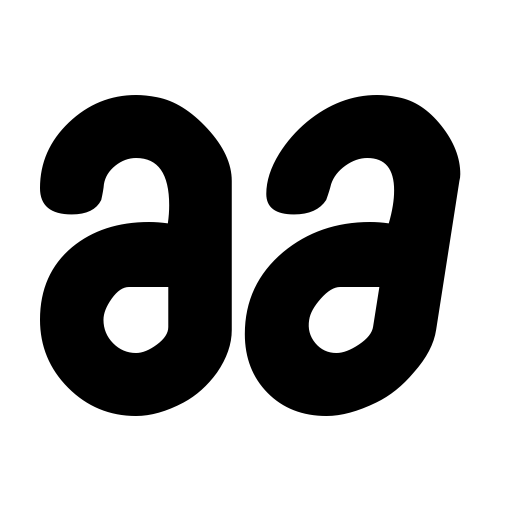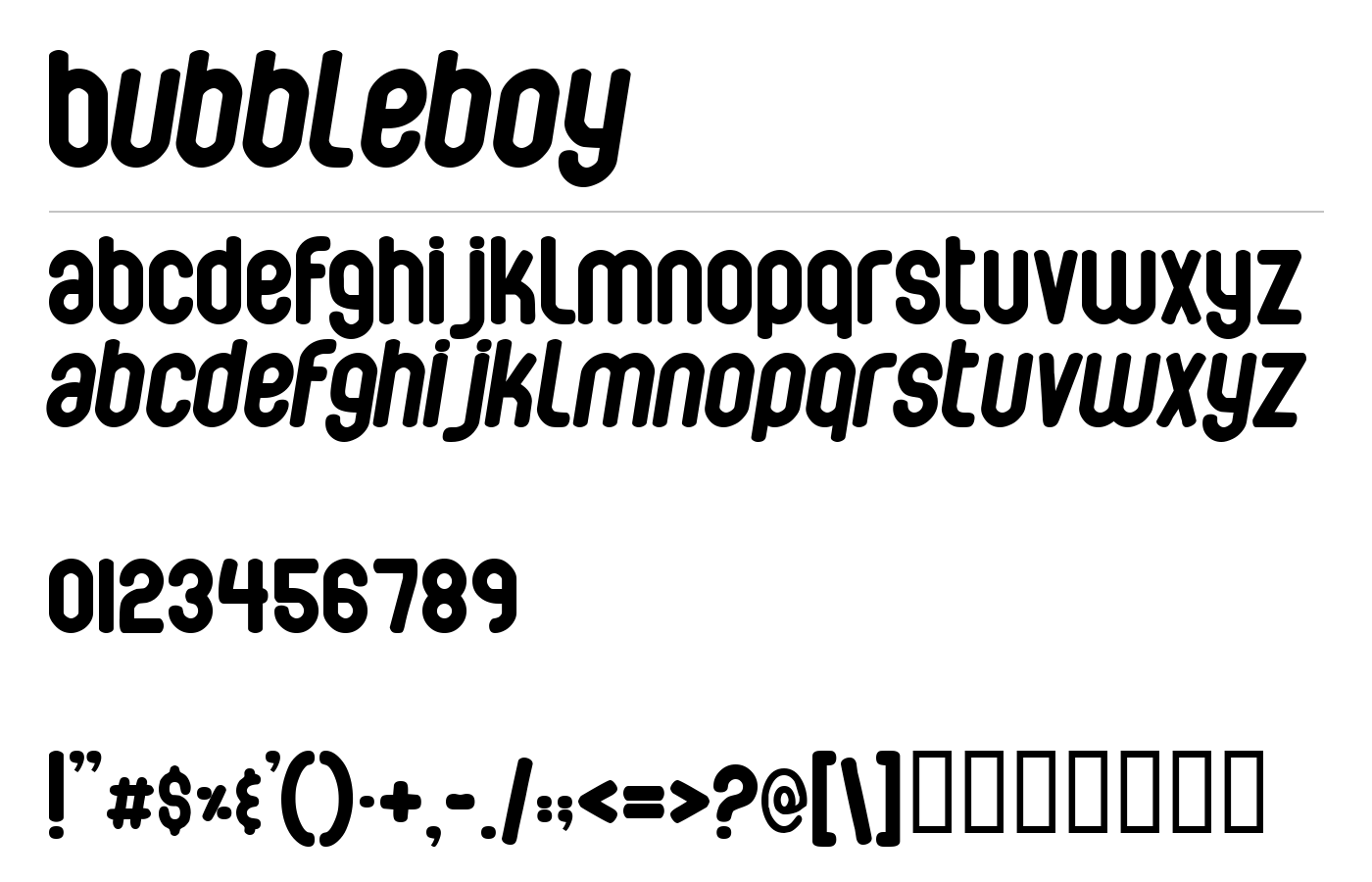
Bubbleboy is a playful and modern sans serif font characterized by its rounded, bold strokes and slightly condensed letterforms. Its high x-height and smooth, geometric curves give it a friendly and approachable personality, making it ideal for casual branding, children’s products, and fun headlines. This font works well in designs that aim to feel lively and contemporary, standing out with its unique, bubbly style.
Bubbleboy Font